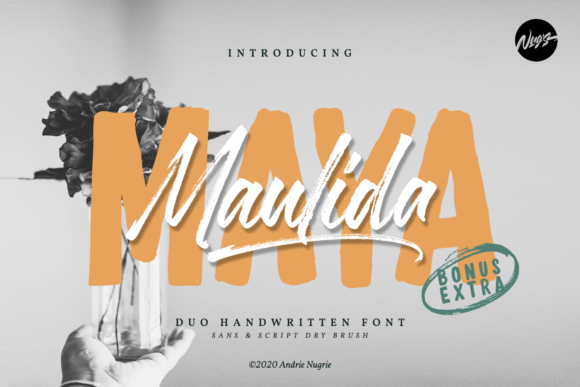
Journey into the realm of elegance and sophistication with Maulida Maya, a script font duo that captivates with its sweeping curves and heartfelt charm. Step into a world where words dance with grace and stories unfold with an air of timeless allure.
Meet Maulida Maya, the display font that ignites your creativity. Its bold strokes and confident presence command attention, making it the perfect choice for headlines, logos, and any design seeking a touch of drama. With Maulida Maya, your words take center stage, leaving an unforgettable impression that lingers long after they're read.
Unveil the magic of Maulida Maya's brushed handwritten companion, a font that breathes life into your designs. Its delicate strokes and genuine charm evoke a sense of intimacy and connection, making it ideal for personal branding, invitations, and handwritten notes. This font captures the essence of human touch, adding a layer of warmth and authenticity to your creative endeavors.
Together, Maulida Maya's duo fonts form an unstoppable force, ready to transform your designs into masterpieces. Their seamless harmony allows you to effortlessly mix and match, creating captivating compositions that exude both strength and tenderness. Whether you're a seasoned designer or just starting your creative journey, Maulida Maya is your trusted companion, guiding you towards design excellence.
Dive into the endless possibilities that Maulida Maya has to offer. Its versatility knows no bounds, effortlessly adapting to a myriad of design styles. From elegant wedding invitations to vibrant social media posts, from captivating posters to heartfelt greeting cards – Maulida Maya becomes an extension of your imagination, bringing your vision to life with unmatched grace and beauty.
Elevate your designs to new heights with Maulida Maya, the script font duo that will leave you spellbound. As you witness the transformation of your creative concepts into breathtaking realities, you'll realize that Maulida Maya is more than just a font – it's an artistic journey waiting to be embarked upon. Don't let this opportunity pass you by. Embrace the magic of Maulida Maya and unlock the true potential of your creativity.